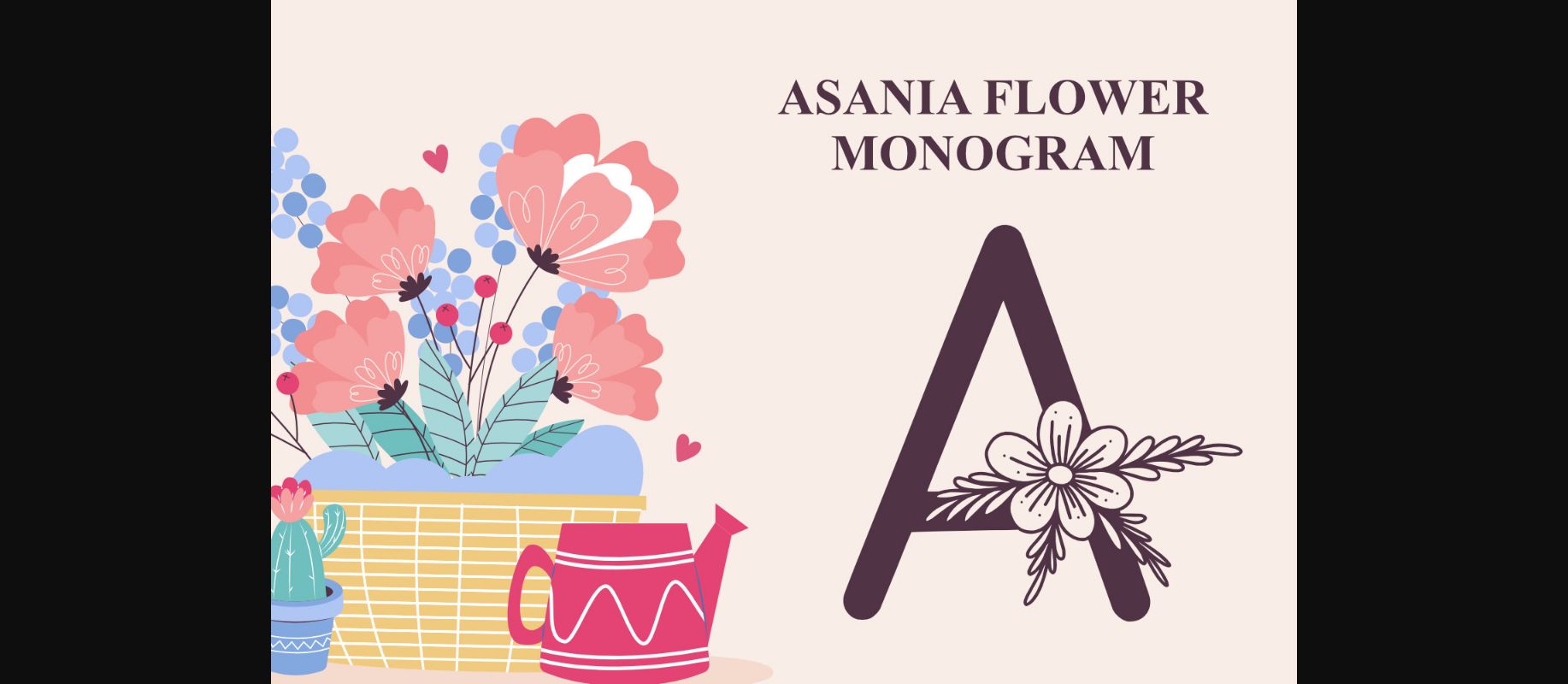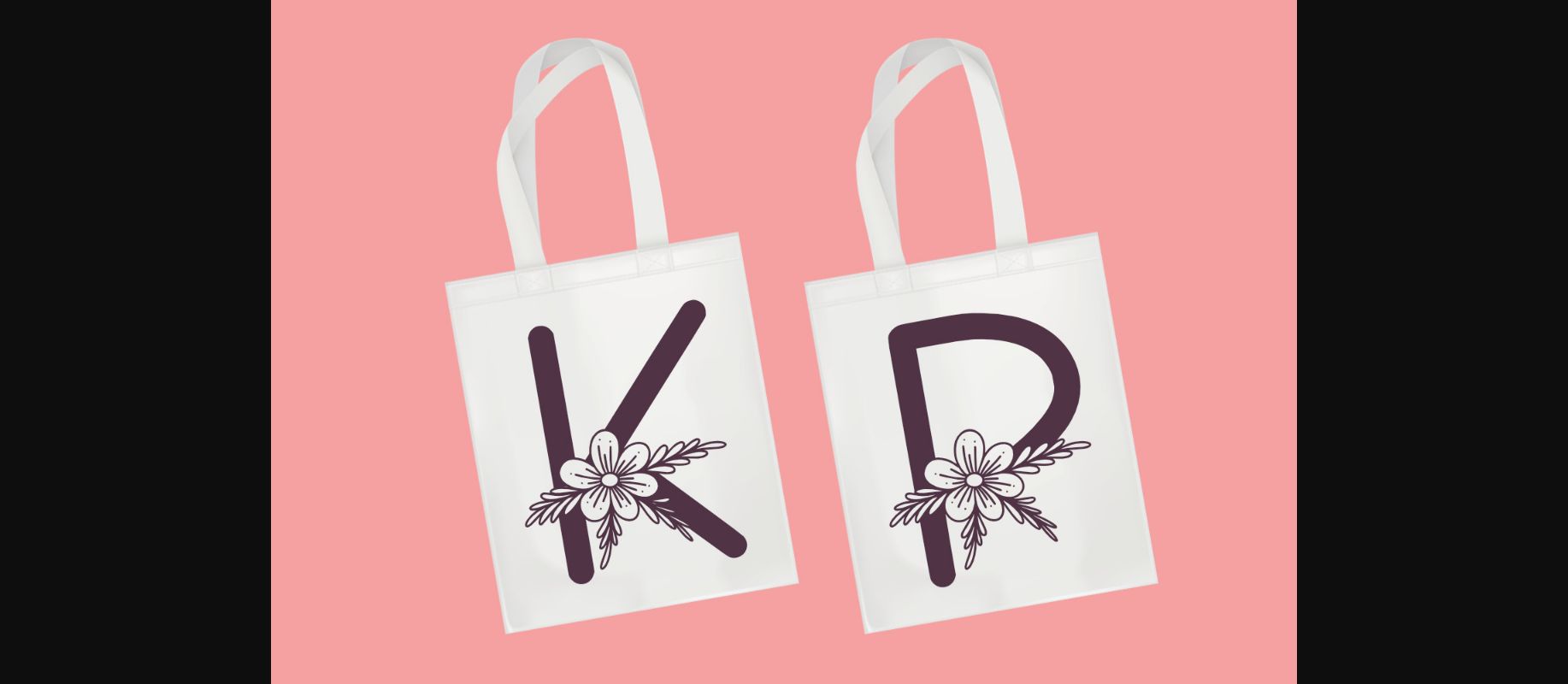
About Monogram Asania Flower Font
Monogram Asania Flower is a beautiful decorative font. This font will add a feeling of love to any craft idea, be it wedding crafts, invitations, greeting cards, Valentines, logos, and others.